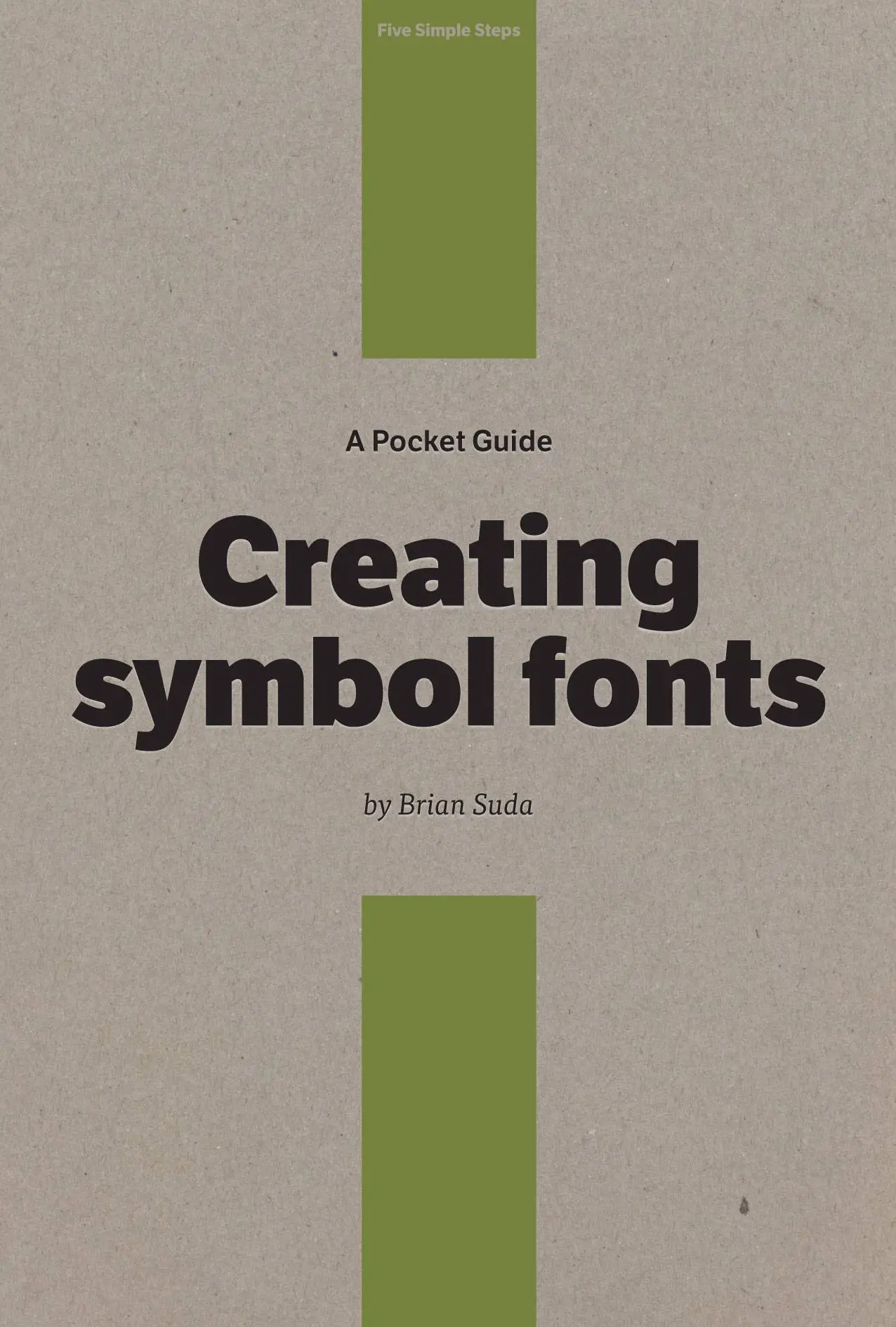
A Pocket Guide to Creating Symbol Fonts
A Pocket Guide to Creating Symbol Fonts by Brian Suda
A new way of creating symbols, glyphs and icons on the web is emerging. The beautifully vectorised images you’re starting to see embedded in sites are called symbol fonts, and they’re smaller, faster, more manageable and smoother than any CSS sprite you might create. Symbol fonts will change the way front-end developers think and code sites. Are you ready?
In this book, Brian Suda will walk you through five quick chapters about symbol fonts. He’ll explain everything you need to know, from why they’re important, to convincing your boss on why you need to make the switch. You'll learn how to properly and semantically add them into your HTML, as well as follow a step-by-step tutorial on how to convert your vector symbols into a font-face ready to embed into your site. No matter what your level of experience, you should be up and rasterising in less than an afternoon.